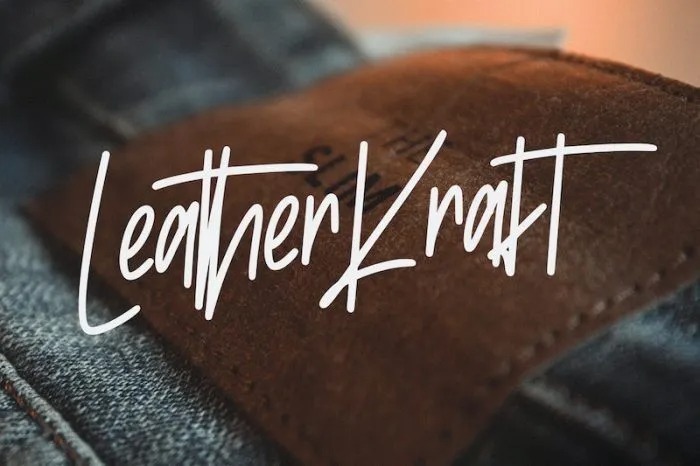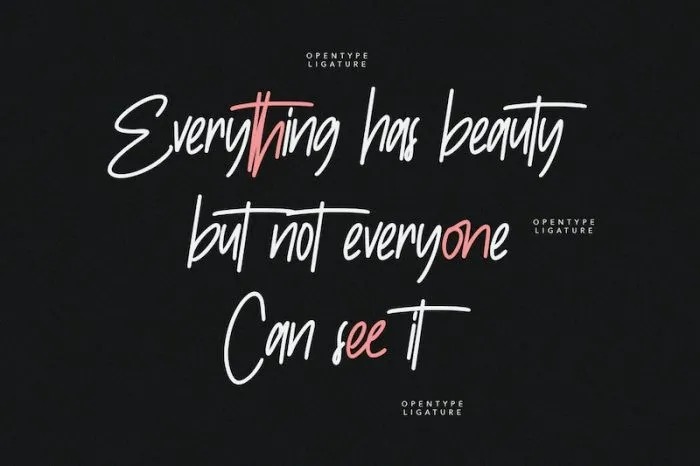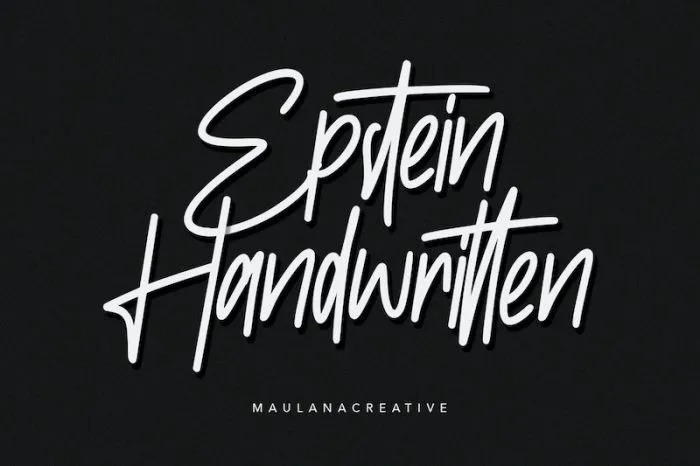
Epstein Handwritten Font
It’s a stunning monoline style script font created by Maulana Creative with authentic and casual vibes. It looks beautiful on a variety of designs requiring a personalized style, such as wedding invitations, thank you cards, weddings, greeting cards, logos and so on.